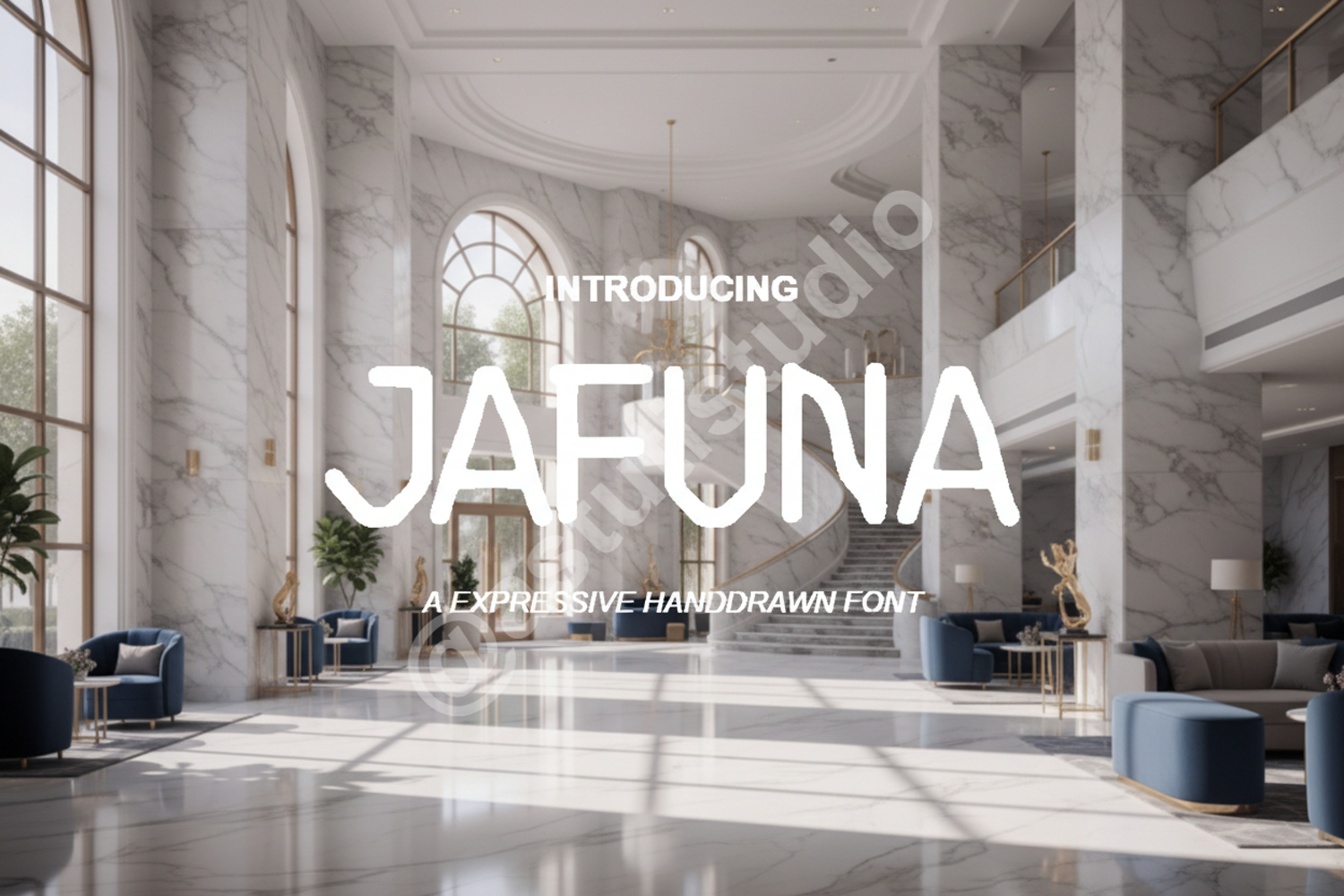
Jafuna - Elegant & Modern Display Serif
Jafuna
Jafuna is a premium display serif font that embodies sophistication and modern elegance. Designed with clean lines and balanced proportions, this typeface is perfect for designers looking to add a touch of luxury to their projects. Whether you are working on a high-end fashion brand or a minimalist editorial layout, Jafuna provides the versatility and professional polish required for top-tier design work.
- Full set of uppercase and lowercase letters
- Multilingual support for global projects
- Branding and Visual Identity: Create memorable logos and brand marks that stand out with professional flair.
- Wedding Stationery: Add a touch of class to invitations, menus, and elegant place cards.
- Editorial Design: Perfect for magazine headers, book covers, and high-end layout typography.
- Social Media Graphics: Elevate your digital presence with sleek, high-contrast typography.
- Advertising: Capture attention with clean, authoritative display text for print and digital campaigns.